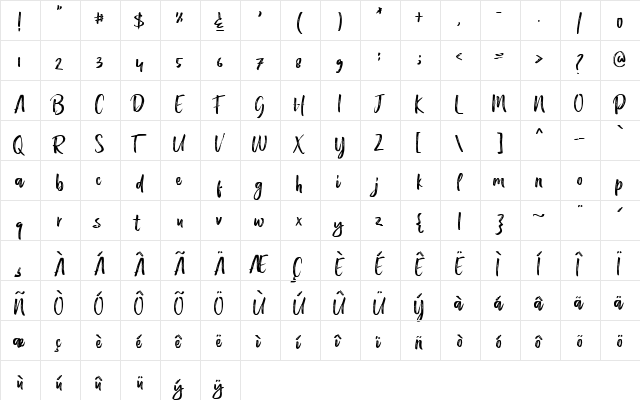
Beatley Regular
Design Context for Beatley Typeface
Beatley is a composed and adaptable typeface that performs quietly and consistently across a wide range of design contexts.